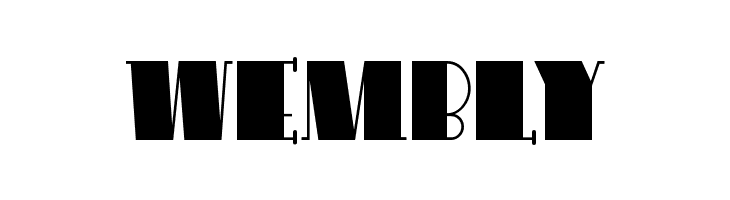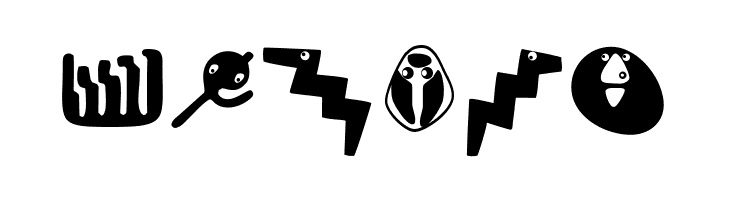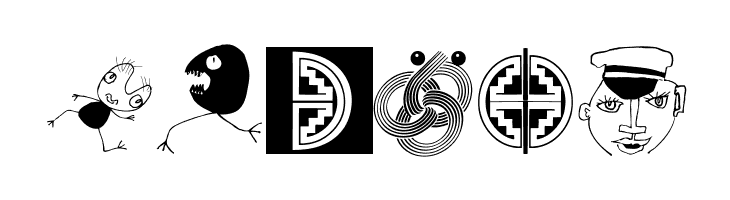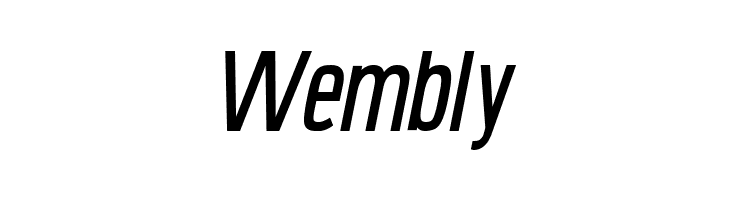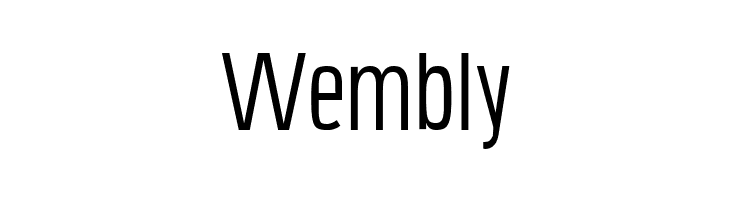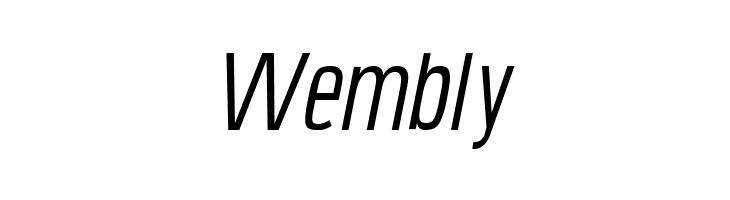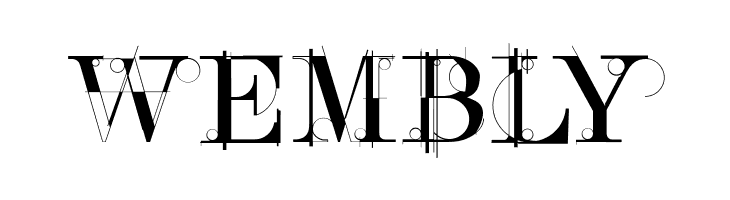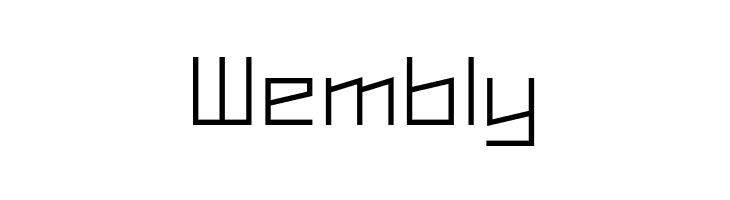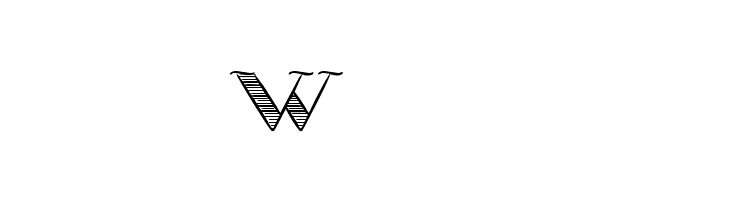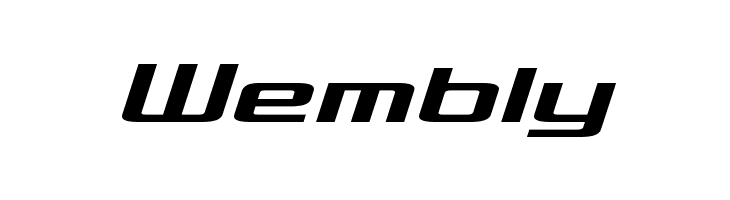
A modern, geometric font with a condensed structure and clean lines.
A modern, condensed italic font with a sleek and dynamic style.
A modern, condensed, semi-italic font with medium contrast and sleek design.
A futuristic, geometric font with expanded letterforms and a tech-inspired design.
A modern, italicized, and expanded font with a futuristic design.
A modern, expanded, semi-italic font with consistent stroke thickness and smooth curves.
A modern, italicized font with a sleek and dynamic design.
A futuristic, angular font with a slanted, dynamic style.
A modern, geometric font with a clean and futuristic design.
A sleek, modern italic font with a geometric and futuristic design.
A sleek, semi-italic font with a modern, dynamic design.
A sleek, semi-italic font with a modern, dynamic style.
A bold, condensed, and decorative font with high contrast and tight spacing.
A modern, condensed sans-serif font with a clean and streamlined appearance.
A modern, condensed sans-serif font with a clean and professional appearance.
A modern, oblique, and condensed font with a sleek appearance.
A modern, oblique, and condensed font with consistent stroke thickness.
An artistic font with sharp serifs and creative character designs.
A quirky, icon-based decorative font with abstract, face-like glyphs.
A collection of abstract, playful icons with whimsical designs.
A bold, high-contrast decorative font with geometric and elegant elements.
A bold, geometric font with decorative elements and a modern flair.
A modern, clean sans-serif font with rounded edges and uniform strokes.
A decorative font with vintage flair and intricate line details.
A pixelated, digital-style font with a retro, blocky appearance.
A dot matrix style font with a retro digital display appearance.
A bold, decorative font with a strong, three-dimensional appearance.
A cursive script font with elegant, flowing strokes and dynamic contrast.
A decorative font with geometric and architectural embellishments.
A geometric, angular font with sharp edges and distinct shapes.
A geometric, ultra-light font with a minimalist and modern design.
Eclectic decorative dingbat font with geometric and whimsical motifs.
A modern, elegant script font with flowing, cursive letterforms.